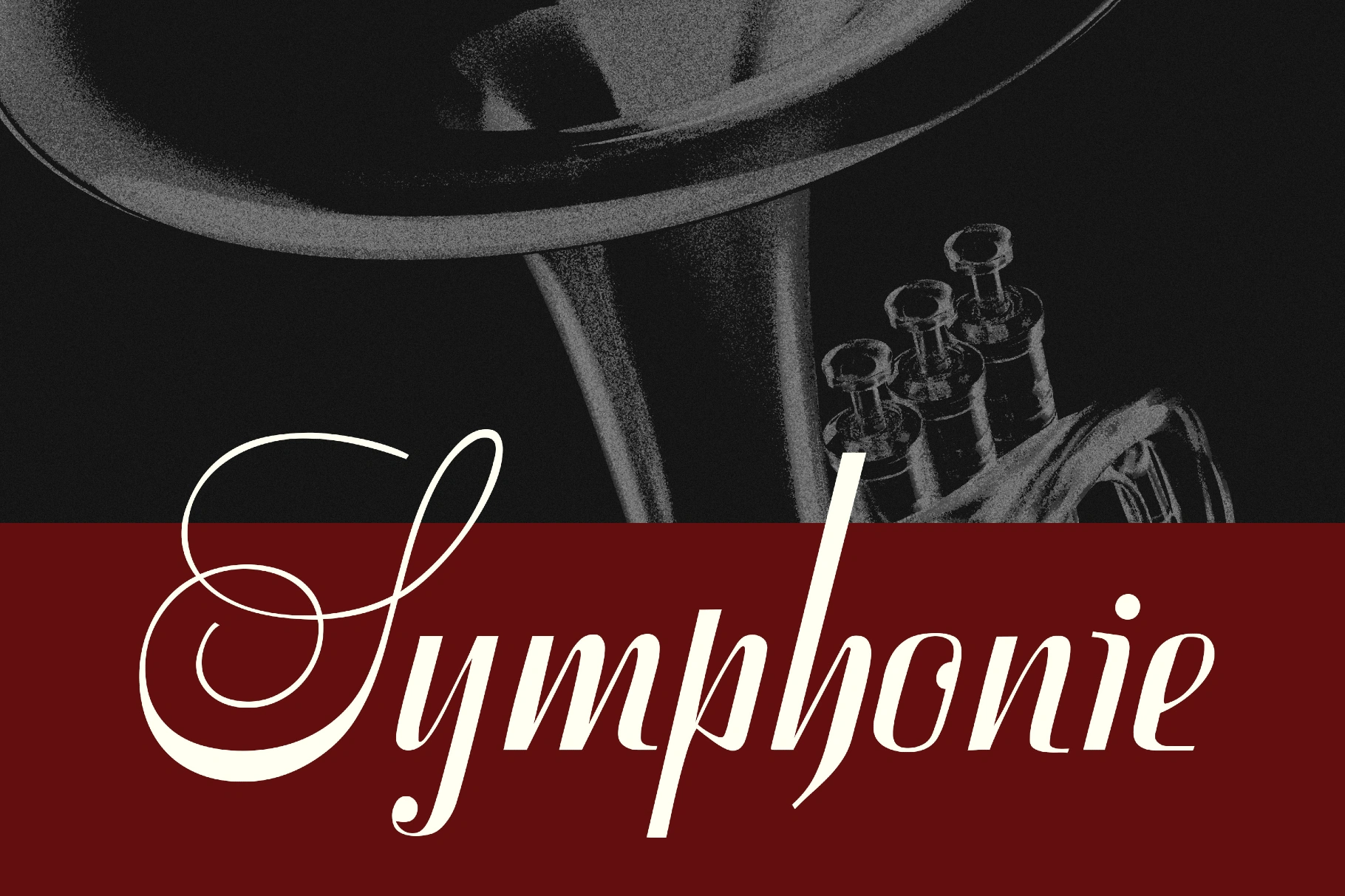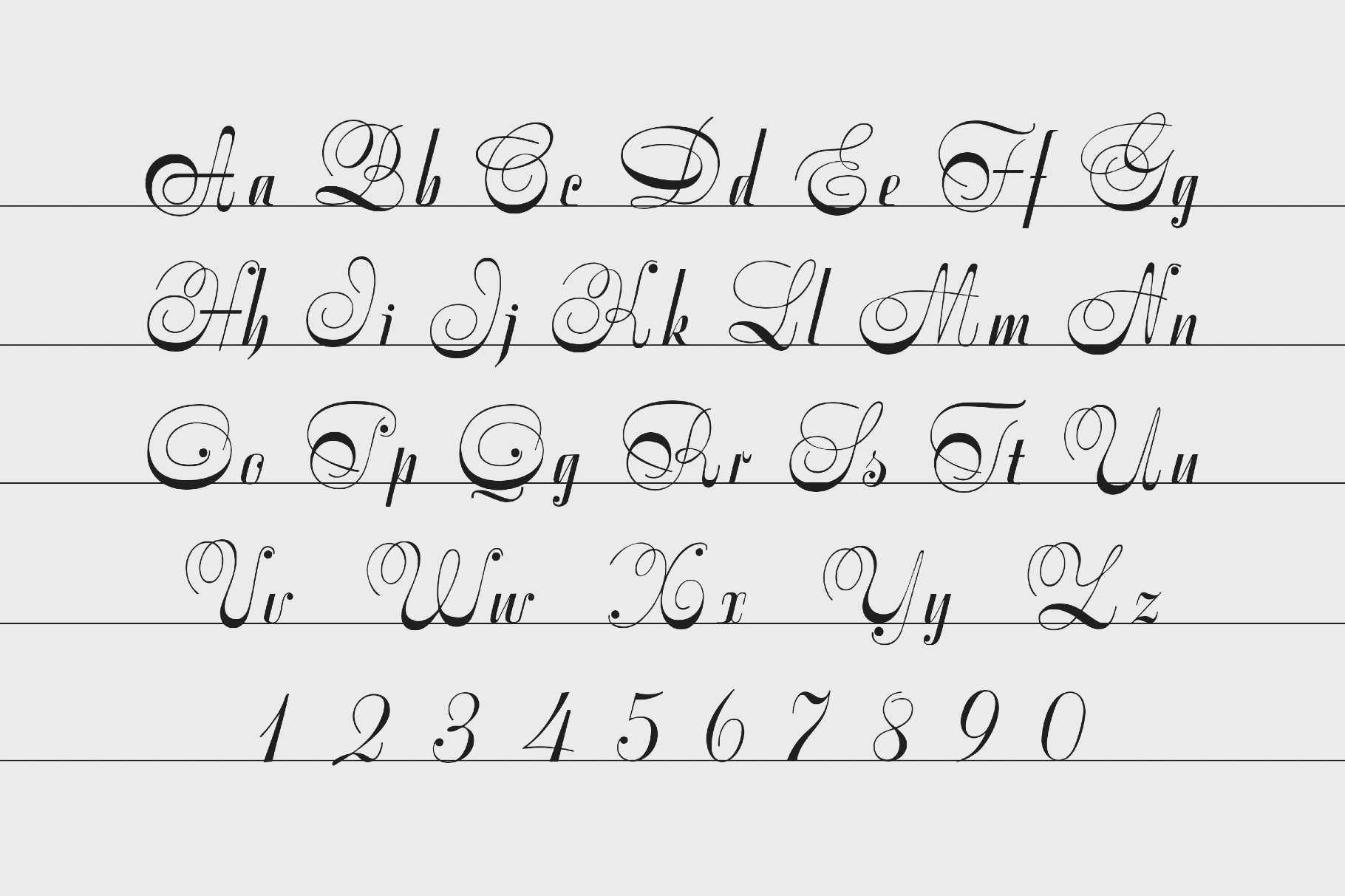
Symphonie Font
Symphonie is an ornate calligraphic font with flowing hairlines and generous swashes, inspired by 1930s European concert posters and handwritten score titles. It sings on wedding stationery, invitations, luxury branding, menus, editorial pull quotes, logo signatures, album covers, book and magazine titles, premium packaging labels, and event posters where flourish and legibility need to share the stage.